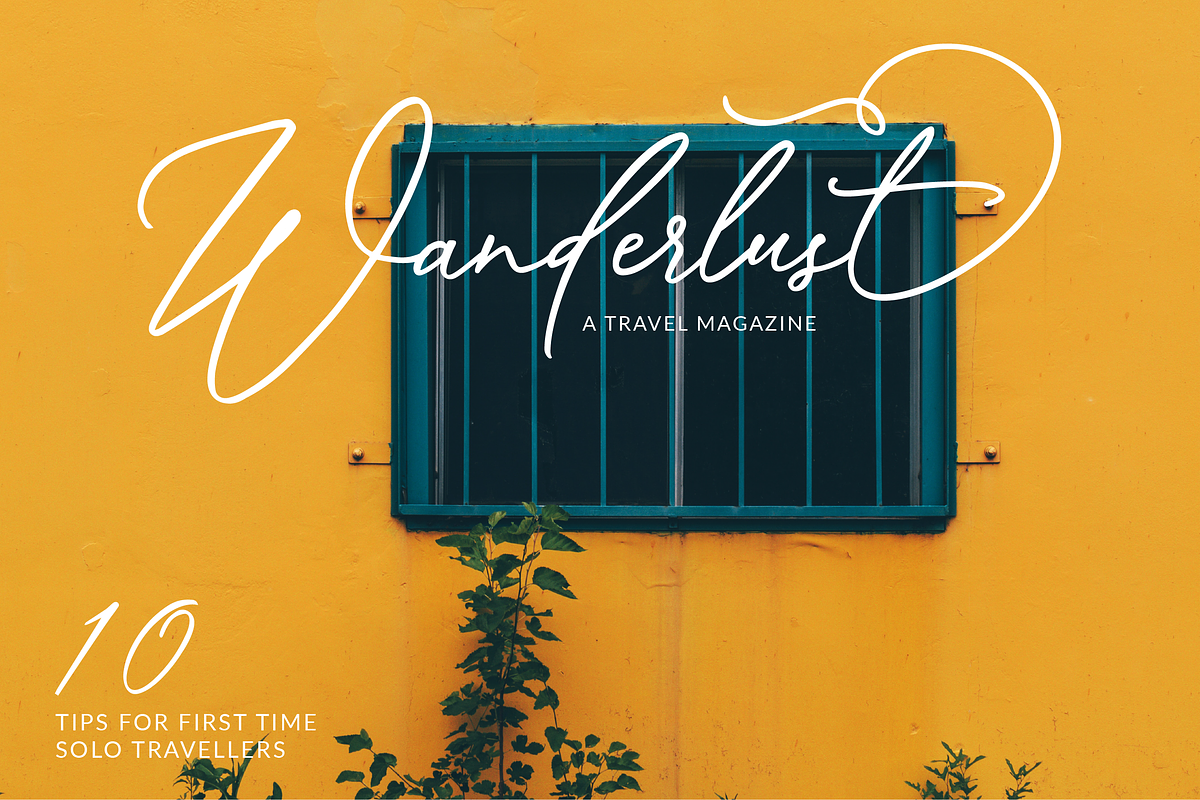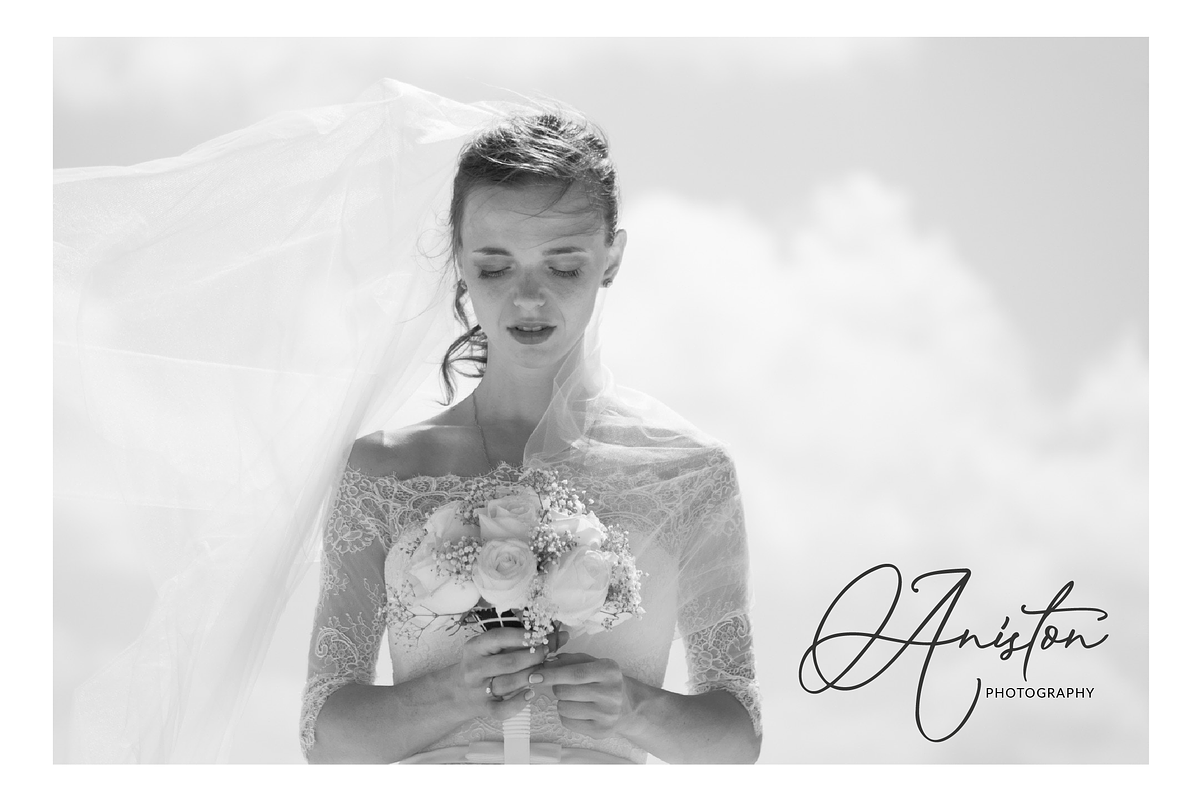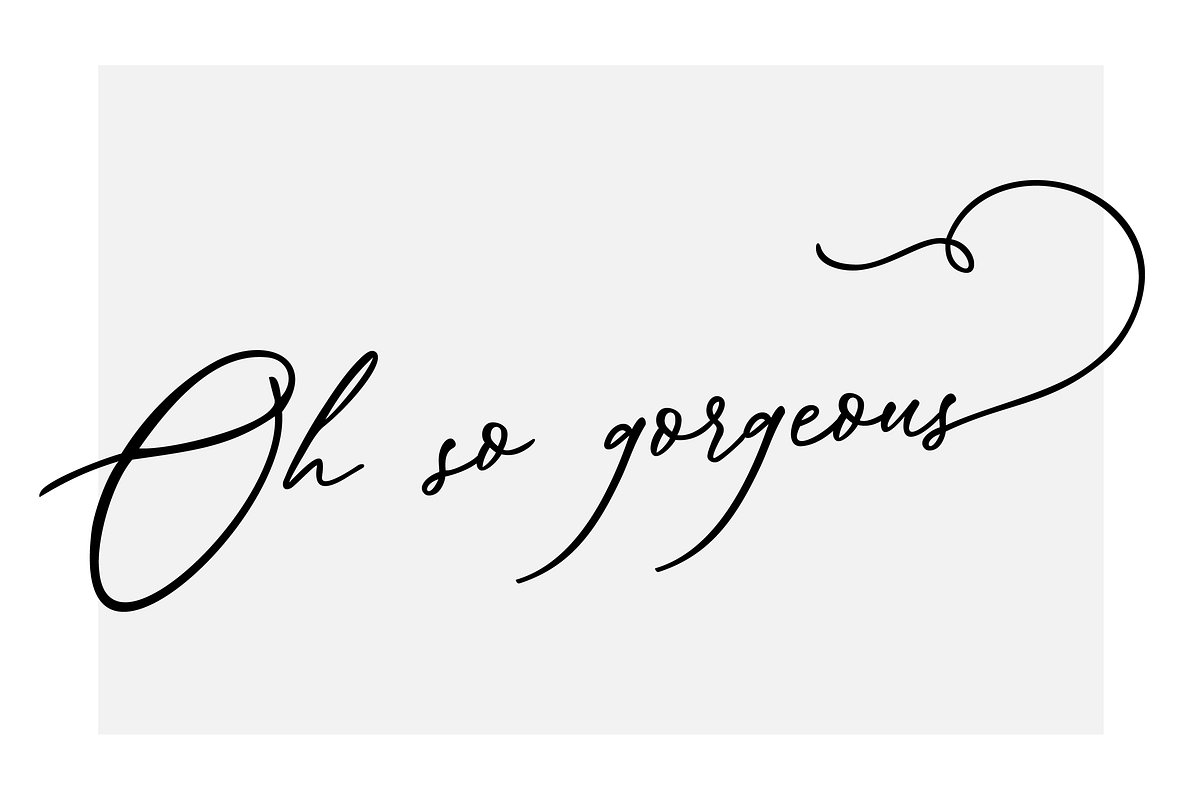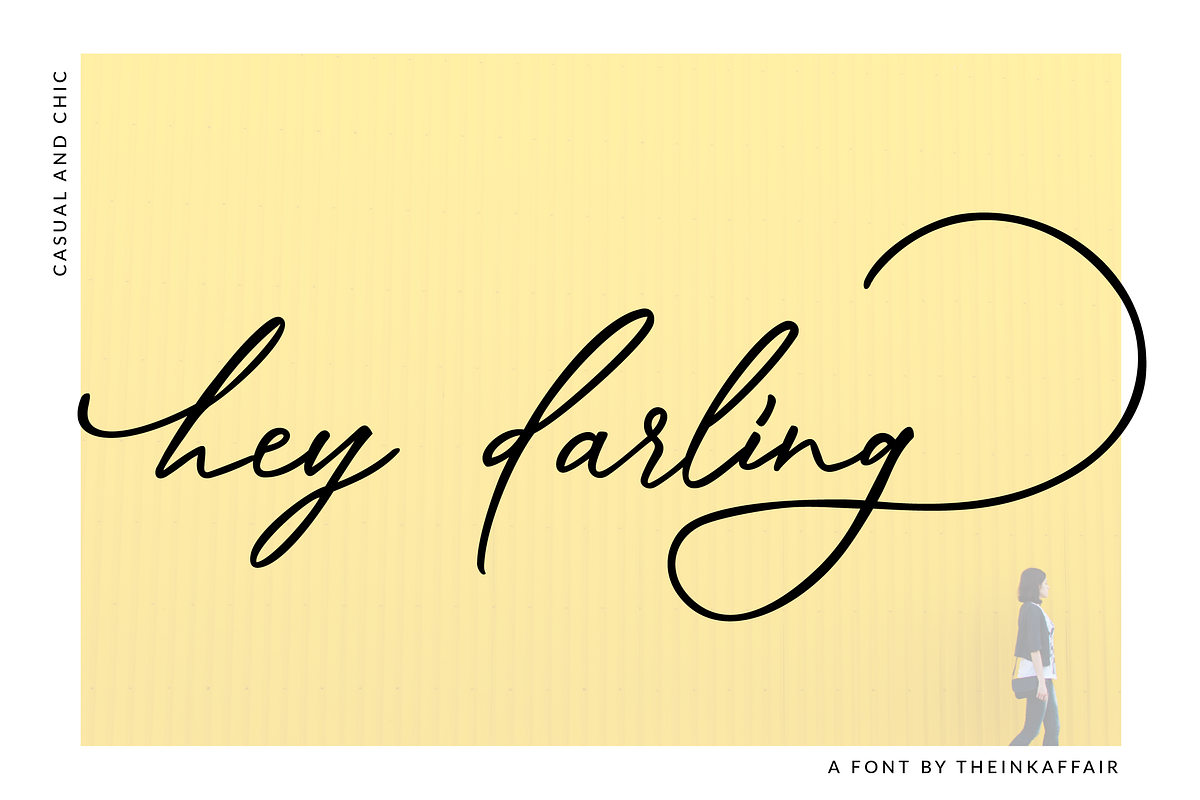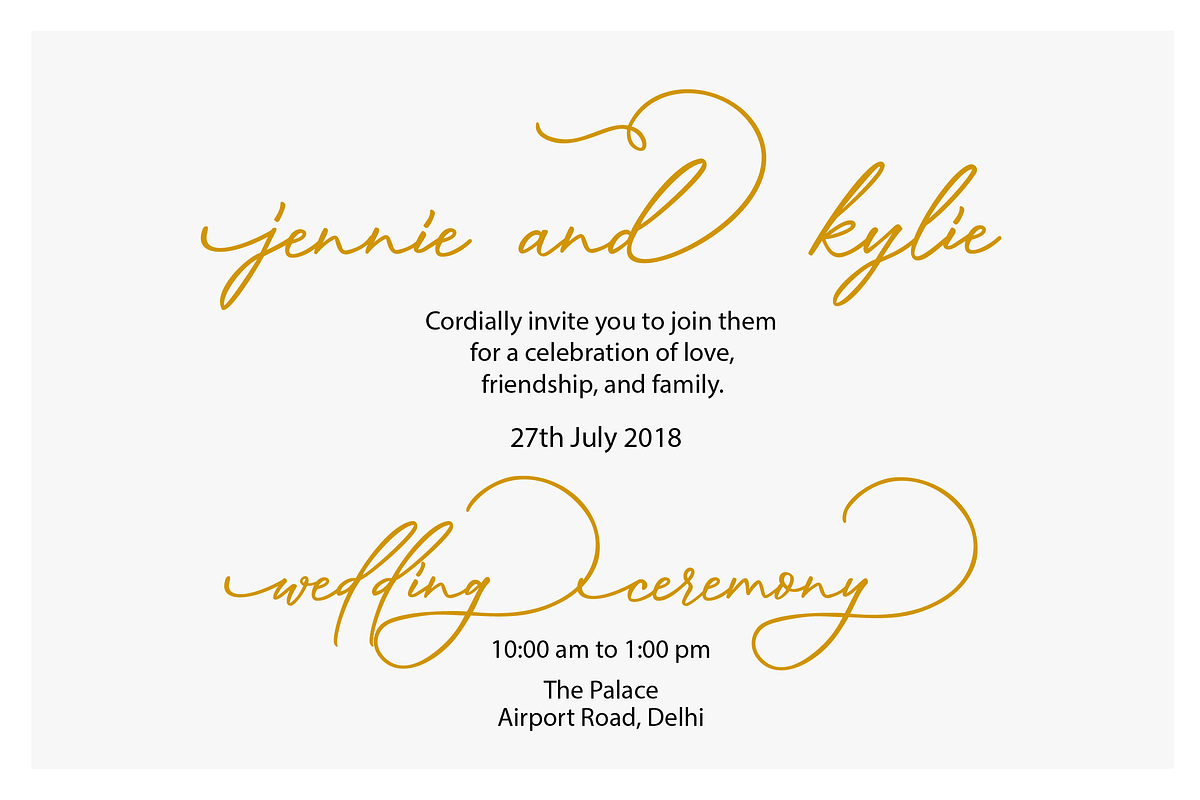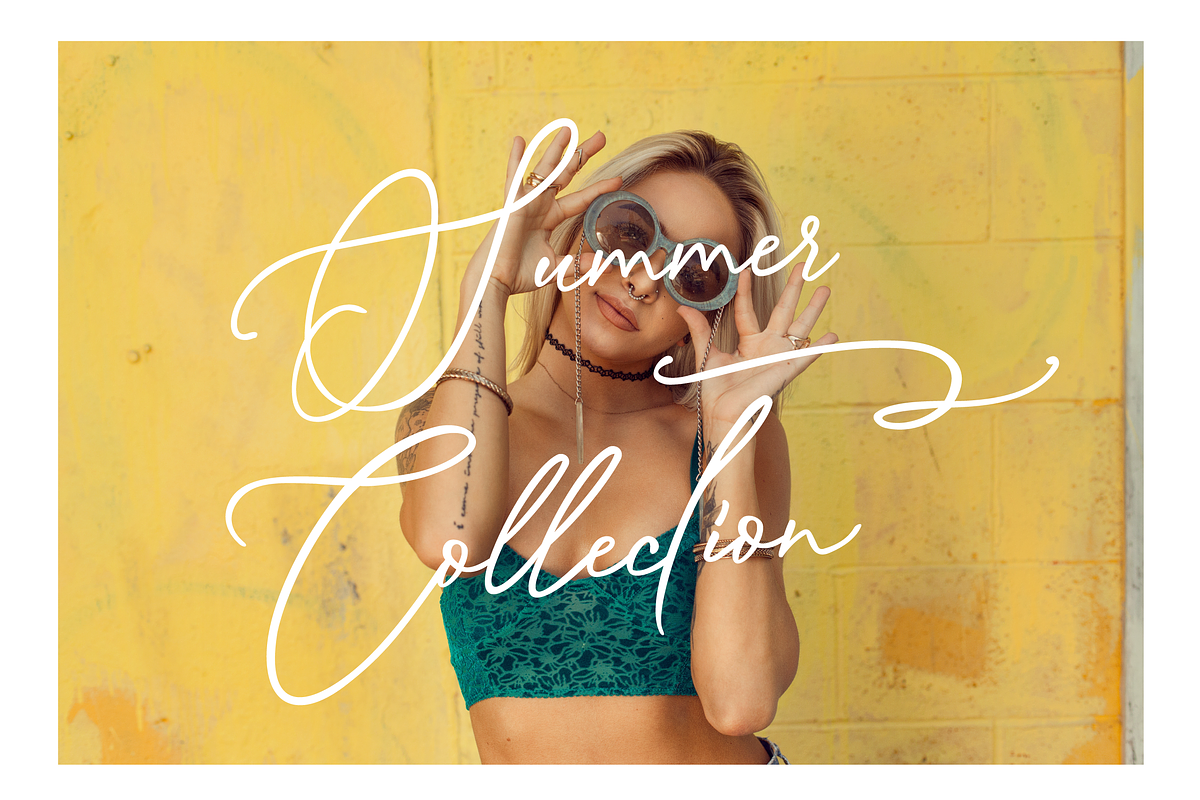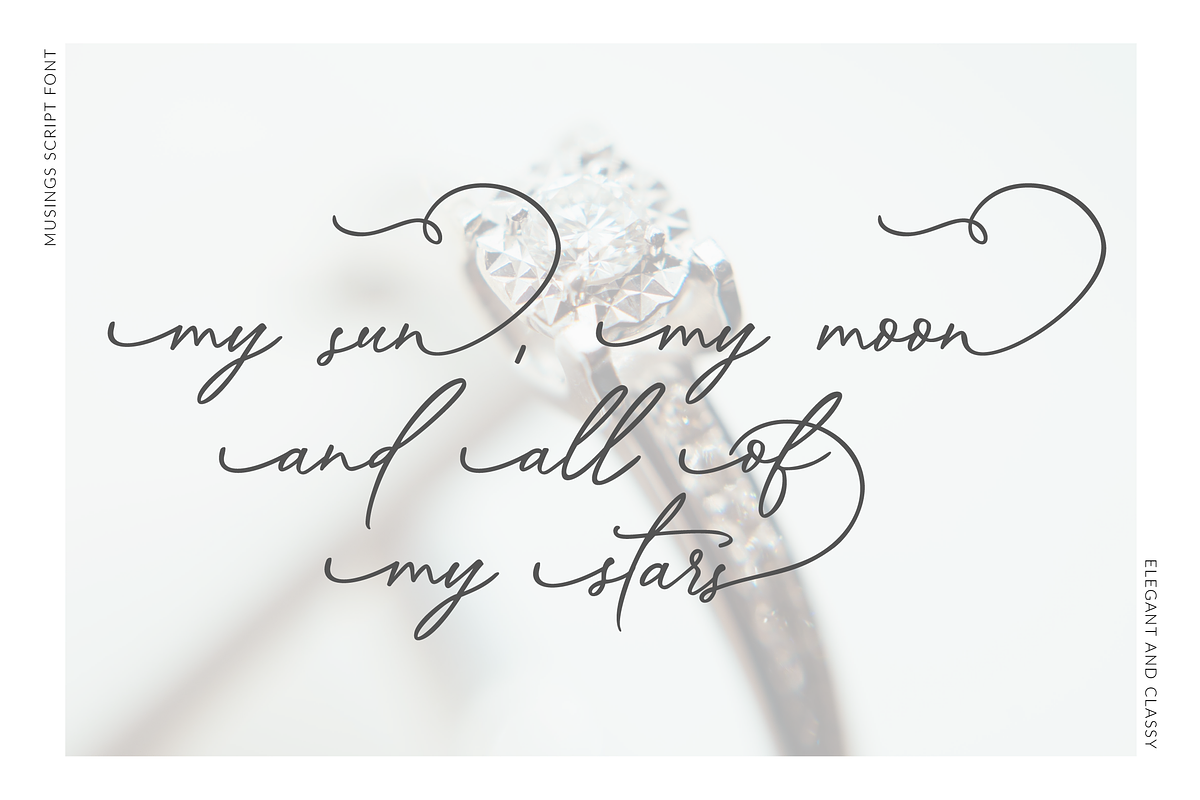
Musings Script Font
Introducing Musings, a classy new script font!
Musings is the perfect script font for creating contemporary designs and includes beginning and ending swashes as alternate lowercase letters, ligatures, numbers, punctuation and it also includes international language support.
Musings Script Font by theinkaffair fits naturally into Branding, posters, packaging, typography.